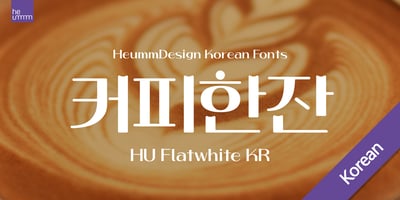
HU Flatwhite KR
HU Flatwhite KR font
HU Flatwhite KR Font Family was designed by Jihye Lee and published by Heummdesign. HU Flatwhite KR contains 1 styles and family package options. This is a headline typeface for titles with a retro sensibility. The concave first projection of the vowel and the dot shape further add to the retro feel.It is characterized by the dot shape seen in the initial consonants and the thin ending strokes of ‘ㄱ’, ‘ㅅ’, and ‘ㅈ’ to create a flowing curve.Although it is a full module, the inner space created by the large contrast of strokes gives a cool feeling.This font contains KOREAN